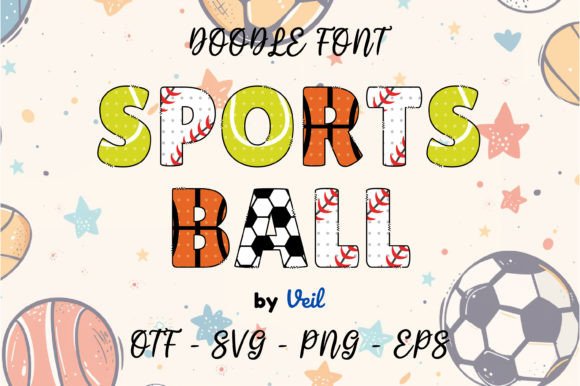
Sports Ball: A Playful Typeface for Bold, Fun Designs
If you’ve ever worked on a project that needed to feel energetic, youthful, and unmistakably fun, you know how hard it can be to find a typeface that captures that spirit without looking cheap or childish. Enter Sports Ball—a display font that brings a playful, artistic vibe to everything from children’s books to social media graphics. It’s not just another novelty typeface; it’s a carefully crafted tool for designers who want to inject personality into their work while maintaining readability and professionalism.
What Makes Sports Ball Stand Out?
Sports Ball is a premium font with a distinct visual character. Its letters are rounded, slightly irregular, and full of movement—think of the energy of a bouncing ball or the whimsy of hand-drawn lettering. Unlike many script fonts or handwritten fonts, Sports Ball strikes a balance between being expressive and legible. It’s bold enough to grab attention but not so exaggerated that it becomes difficult to read at smaller sizes.
The font comes in two versions: a black version compatible with Cricut Design Space and other cutting machines, and a color version designed for programs like Photoshop, Illustrator, Silhouette, and Inkscape. This flexibility makes it a valuable design asset for crafters, small business owners, and digital creators alike. Just keep in mind that the color version isn’t compatible with Cricut—so if you’re planning a vinyl cut project, stick with the black version.
Where Sports Ball Shines: Practical Applications
This isn’t a font for legal documents or corporate reports. Sports Ball is built for projects where personality and visual impact matter most. Here’s where it really excels:
- Children’s books and educational materials: The font’s playful curves and friendly demeanor make it perfect for engaging young readers. It’s easy to read at various sizes, which is crucial for early literacy materials.
- Event invitations and greeting cards: Whether it’s a birthday party, a baby shower, or a casual get-together, Sports Ball adds a celebratory touch without feeling overly formal.
- Posters and flyers: Need to promote a local sports event, a school fair, or a community gathering? This font helps your message stand out with energy and approachability.
- Packaging design: For products targeting families, kids, or fun-loving audiences—think snack foods, toys, or craft kits—Sports Ball can reinforce a brand’s friendly, approachable identity.
- Social media graphics: In the fast-scrolling world of Instagram or TikTok, a distinctive font like Sports Ball can stop thumbs and boost engagement. It’s especially effective for quotes, announcements, and promotional posts.
For entrepreneurs and small business owners, using a creative font like Sports Ball can be a strategic move. It helps differentiate your brand identity in crowded markets, especially if your audience includes parents, educators, or creative hobbyists.
Choosing and Pairing Sports Ball Wisely
Just because a font is fun doesn’t mean it should be used everywhere. Here’s how to decide if Sports Ball is the right fit for your project—and how to use it effectively.
Evaluate Your Project’s Tone and Audience
Ask yourself: Does my project need to feel energetic, youthful, or informal? If you’re designing for a children’s brand, a community event, or a lifestyle blog, Sports Ball could be a great match. For corporate branding, financial services, or luxury goods, you’d probably want to steer toward a more neutral sans serif font or classic serif font.
Test Font Pairings for Balance
Sports Ball works best as a display font—for headlines, titles, or short bursts of text. Pair it with a clean, readable body font to maintain visual hierarchy and readability. For example, combine it with a simple sans serif like Montserrat or a friendly serif like Lora. This contrast lets the playful font shine without overwhelming the reader.
Review Included Styles and Licensing
Consider Readability in Context
While Sports Ball is legible for its category, always test it at the size and medium you’ll be using. A font that looks great on a poster might not work as well in a small mobile banner. Print out samples, view them on different screens, and get feedback from others if possible. Remember, even the most charming font fails if people can’t read your message.
Final Thoughts on Using Sports Ball
In a world of safe, predictable typography, Sports Ball offers a breath of fresh air. It’s a typeface that doesn’t take itself too seriously—but it’s serious about quality and versatility. Whether you’re a designer crafting a logo design for a kids’ brand, a marketer creating social media graphics for a product launch, or a crafter cutting vinyl for custom party decorations, this font brings personality to the table.
Use it thoughtfully. Pair it wisely. And let it help you create work that connects with your audience on a human level. After all, good design isn’t just about looking good—it’s about feeling right.